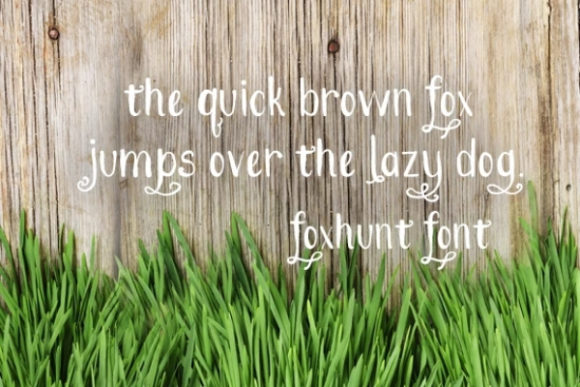
Introducing Foxhunt Font: The Perfect Hand-Lettered Font for Your Creative Projects
Are you looking for a font that can add a personal touch to your designs? Look no further than Foxhunt Font, a lovely hand-lettered handwritten font that is sure to capture your heart. With its authentic feel and versatility, Foxhunt Font is perfect for creating a wide range of projects, from gorgeous wedding invitations to beautiful stationary art, eye-catching social media posts, and cute greeting cards.
What Makes Foxhunt Font So Special?
Foxhunt Font is a unique and charming font that is hand-lettered with love and care. Its authentic feel makes it perfect for designers and crafters who want to add a personal touch to their projects. The font is designed to be highly legible and easy to read, making it perfect for use in a variety of contexts, from digital media to print materials.
Uses for Foxhunt Font
Foxhunt Font is an incredibly versatile font that can be used for a wide range of projects, including:
- Wedding Invitations: Create beautiful and unique wedding invitations that will set the tone for your special day. Foxhunt Font is perfect for creating elegant and sophisticated invitations that will impress your guests.
- Stationary Art: Add a personal touch to your stationary art with Foxhunt Font. Create beautiful journals, notebooks, and other paper crafts that are sure to delight.
- Social Media Posts: Make your social media posts stand out with Foxhunt Font. Create eye-catching graphics and quotes that will grab the attention of your followers.
- Greeting Cards: Create cute and personalized greeting cards for any occasion. Foxhunt Font is perfect for creating unique and thoughtful cards that will be treasured by your loved ones.
Why Designers and Crafters Love Foxhunt Font
Foxhunt Font is a favorite among designers and crafters for several reasons:
- Unique and Authentic: Foxhunt Font is a one-of-a-kind font that is hand-lettered with love and care. Its authentic feel makes it perfect for designers and crafters who want to add a personal touch to their projects.
- Highly Legible: Foxhunt Font is designed to be highly legible and easy to read, making it perfect for use in a variety of contexts, from digital media to print materials.
- Versatile: Foxhunt Font is an incredibly versatile font that can be used for a wide range of projects, from wedding invitations to social media posts.
Tips for Using Foxhunt Font
Here are a few tips for using Foxhunt Font in your projects:
- Experiment with Different Sizes: Foxhunt Font looks great in a variety of sizes, from large headings to small body text. Experiment with different sizes to find the perfect fit for your project.
- Pair with Other Fonts: Foxhunt Font pairs well with a variety of other fonts. Try pairing it with a bold sans-serif font for a striking contrast.
- Use in Digital and Print Materials: Foxhunt Font is perfect for use in both digital and print materials. Use it to create eye-catching social media posts, or print it out for use in physical materials like wedding invitations and greeting cards.
Foxhunt Font is a lovely hand-lettered handwritten font that is sure to capture your heart. With its authentic feel and versatility, it’s perfect for creating a wide range of projects, from gorgeous wedding invitations to beautiful stationary art, eye-catching social media posts, and cute greeting cards. Whether you’re a designer or crafter, Foxhunt Font is a great addition to your font collection.